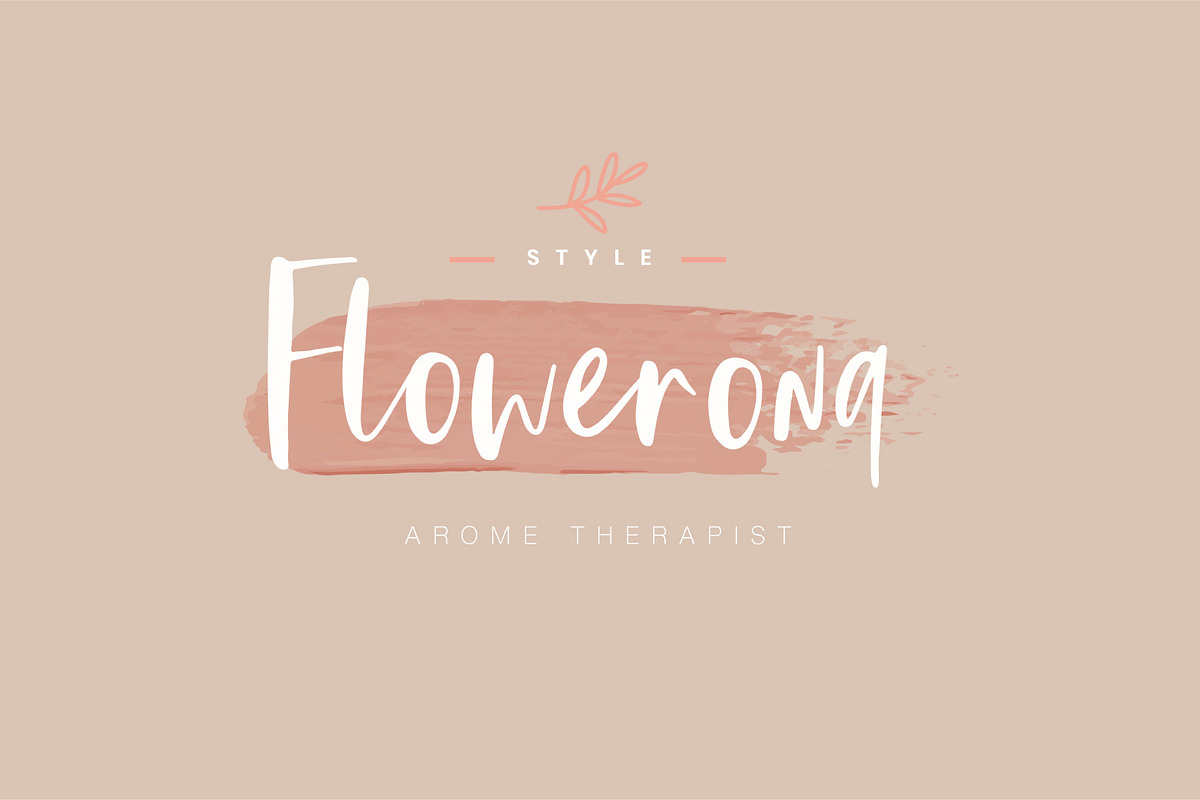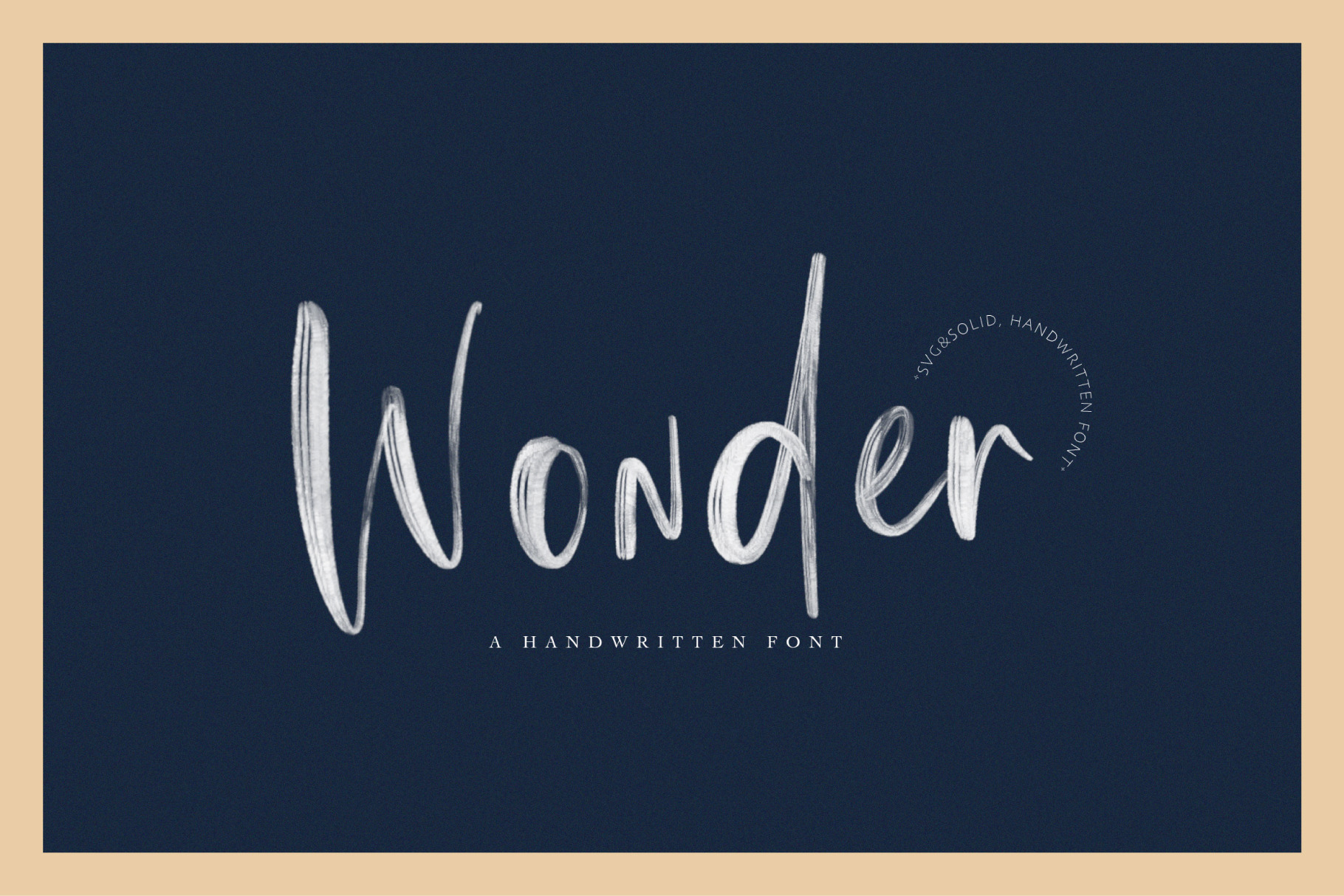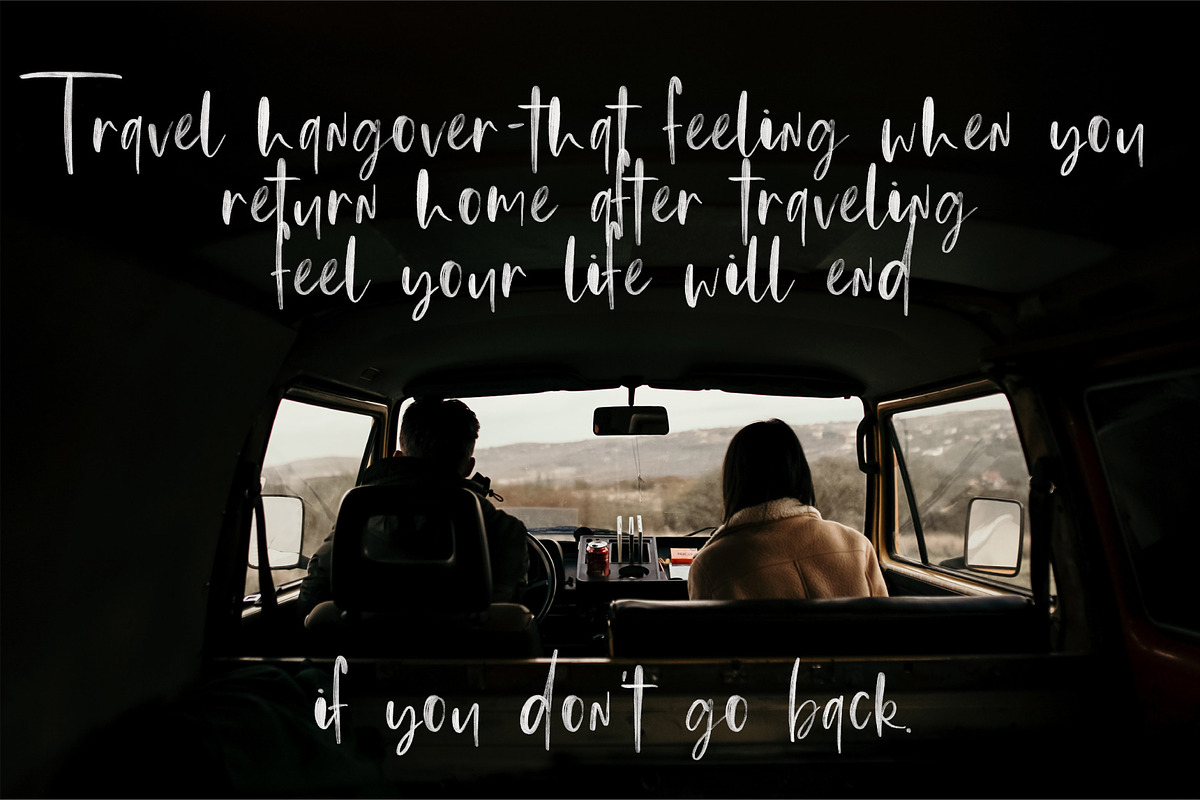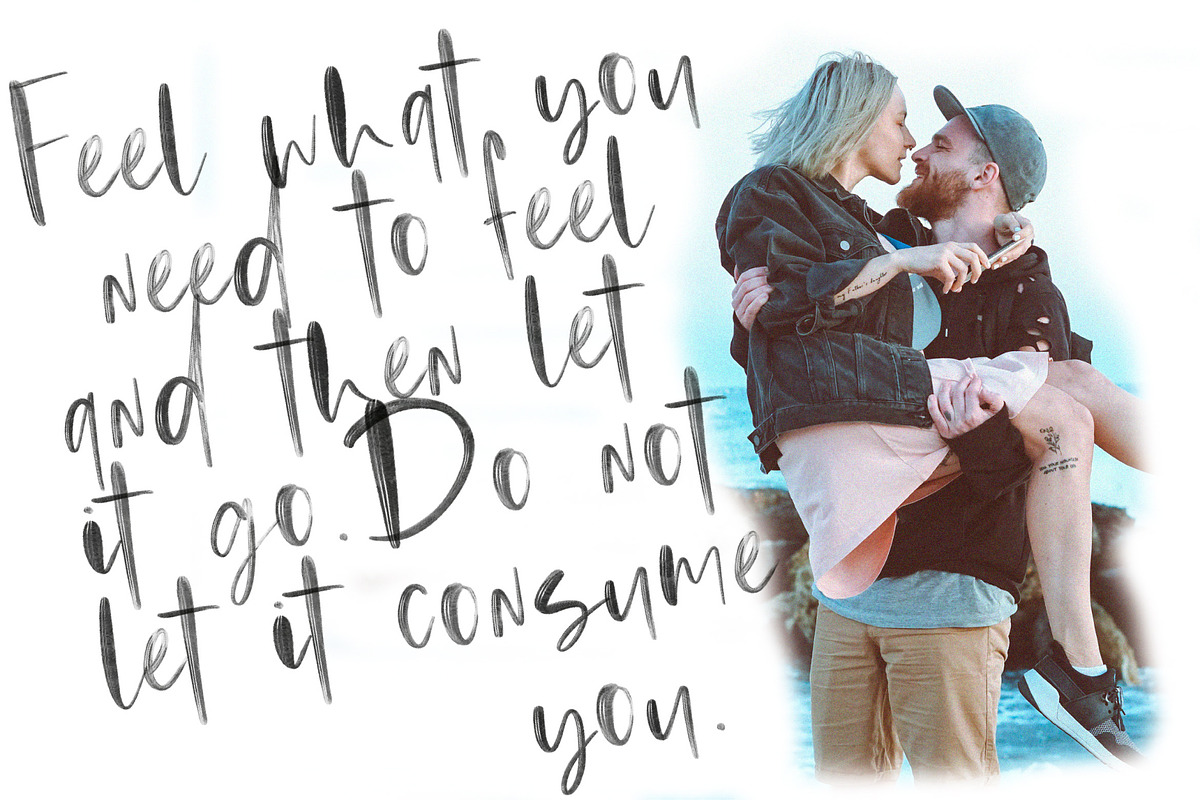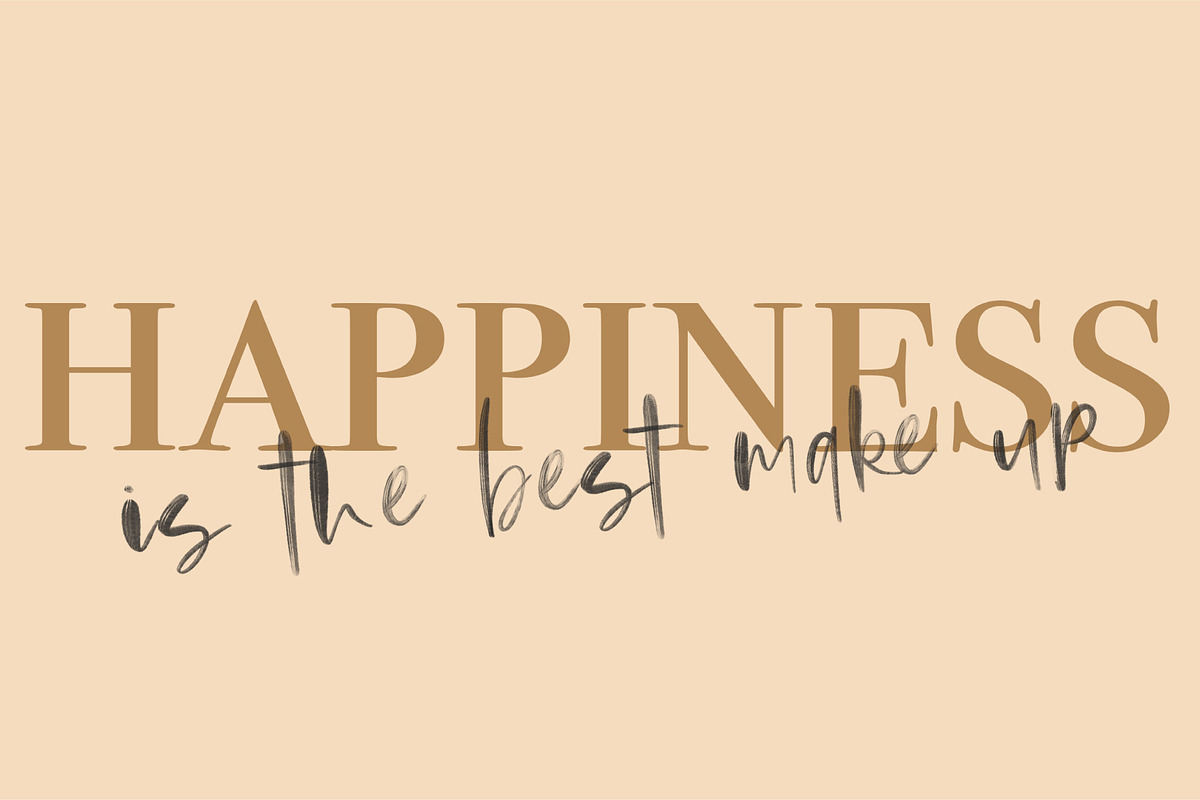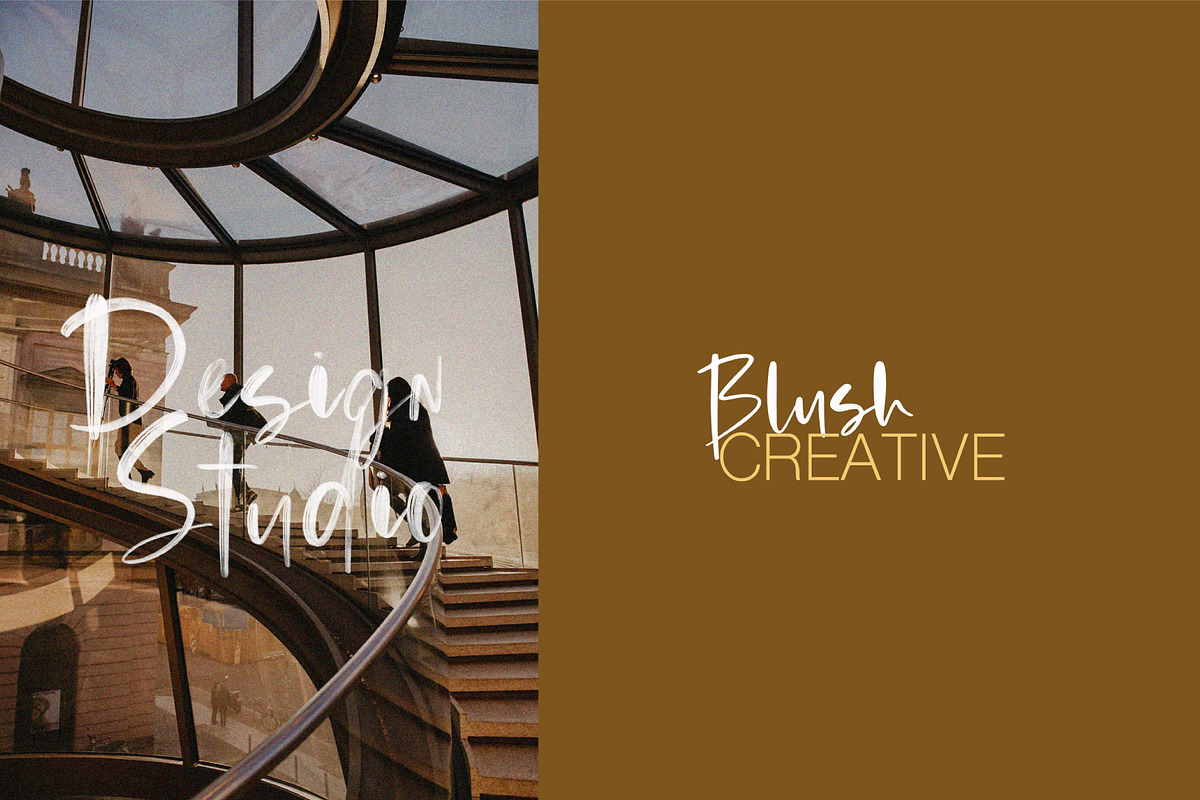
Wonder | SVG Font
Wonder is the SVG handwritten brush font. This font is especially for you if you need to add tenderness to your project. Absolutely handwritten and created by hand.
This handwritten font can combine it with other fonts to make your style.
A beautiful collection of hand-lettered modern fonts. Perfect for Type-based creations, branding, packaging, quotes, invites, greetings, websites, book covers and so much more!
Wonder SVG: Upper and Lowercase numbers and punctuation This is the OpenSVG version of the font